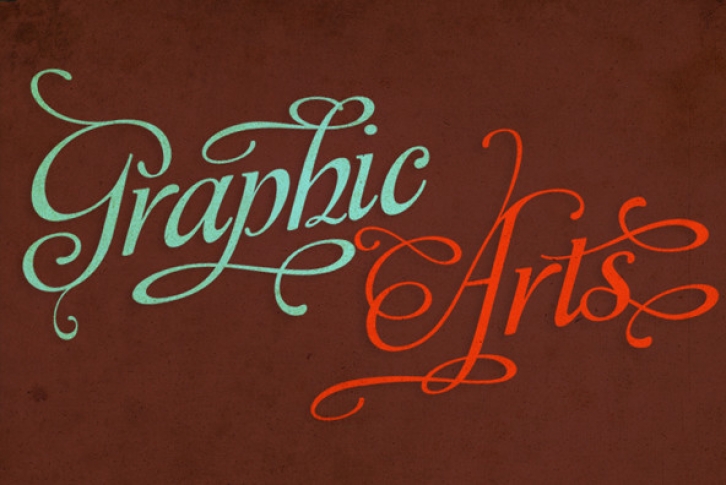
Affair. It's an event and you're invited. Affair is an extraordinary new calligraphic typeface by Alejandro Paul with a party full of swash characters, ligatures, and ornaments. By default, it's simply an elegant yet readable display face. Dress it up with alternates, and it becomes irresistibly attractive, in styles from glamourous to over-the-top. Hundreds of alternates, tons of swashy endings and ligatures, all accessible through OpenType palettes in programs that support such features.